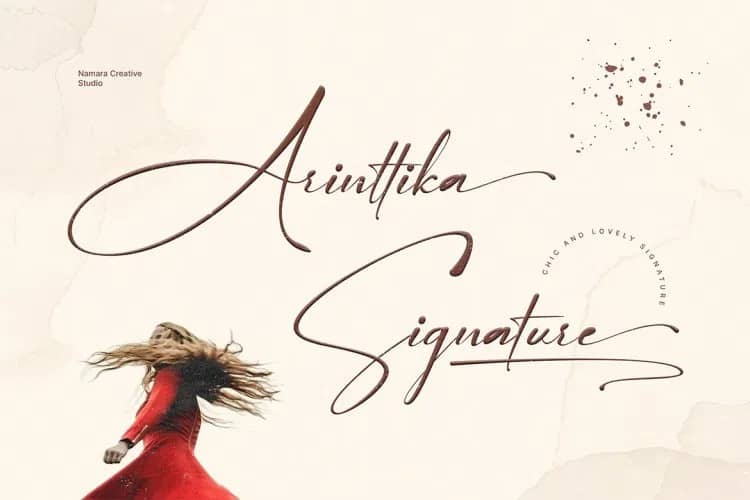
Arinttika Font
Arinttika Script Font is a delicate, elegant and flowing handwritten font created by Namara Creative Studio with a sense of elegant souls. perfect for many different project such as logos & branding, invitations, stationery, wedding designs, social media posts, advertisements, product packaging, product designs, label, photography, watermarks, special events or anything. Including uppercase, lowercase, swashes, numerals, punctuations, multilingual support and the alternates of lowercase with ending swashes.